Logos & Wordmarks
Marks and letters can have an immediate impact, instantly evoking an emotional response or sparking a memory. We’ve worked with clients across a wide range of industries to distill their goals, visions, and values into cohesive, self-evident signs.
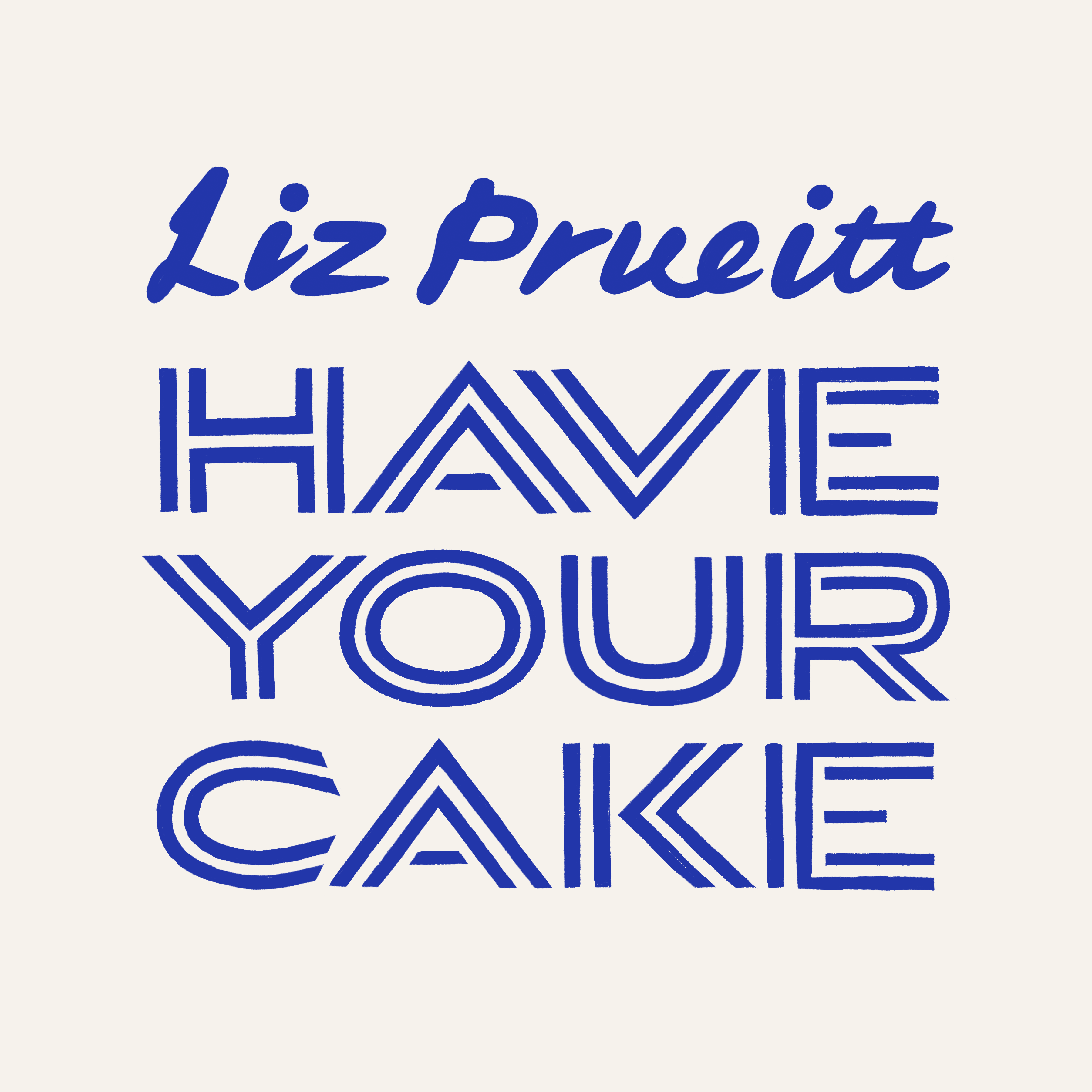
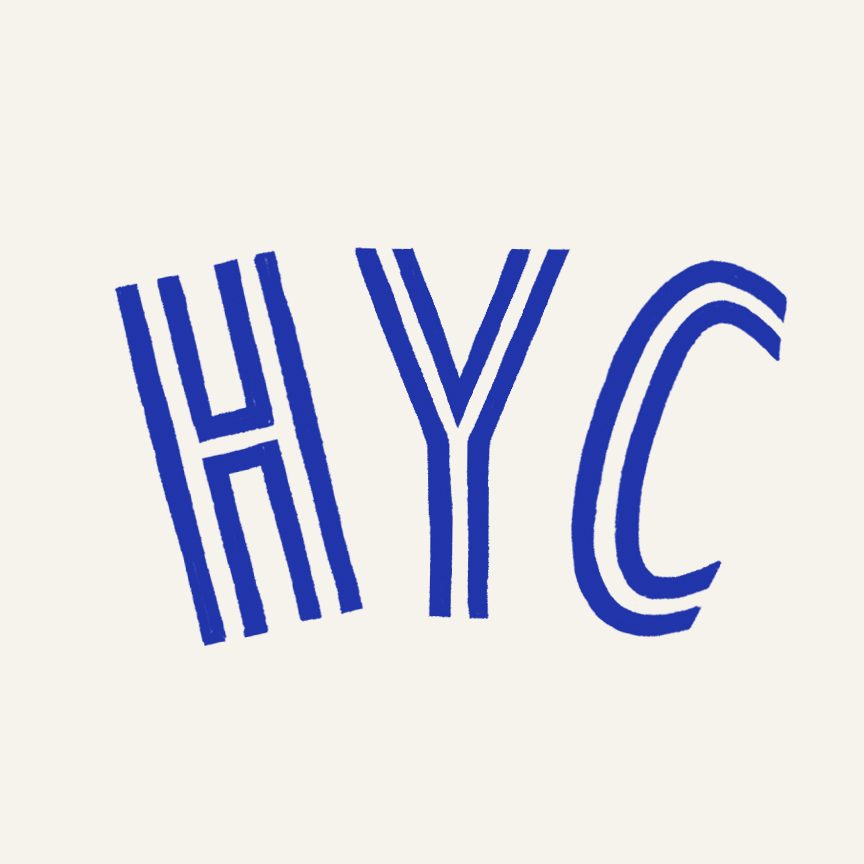
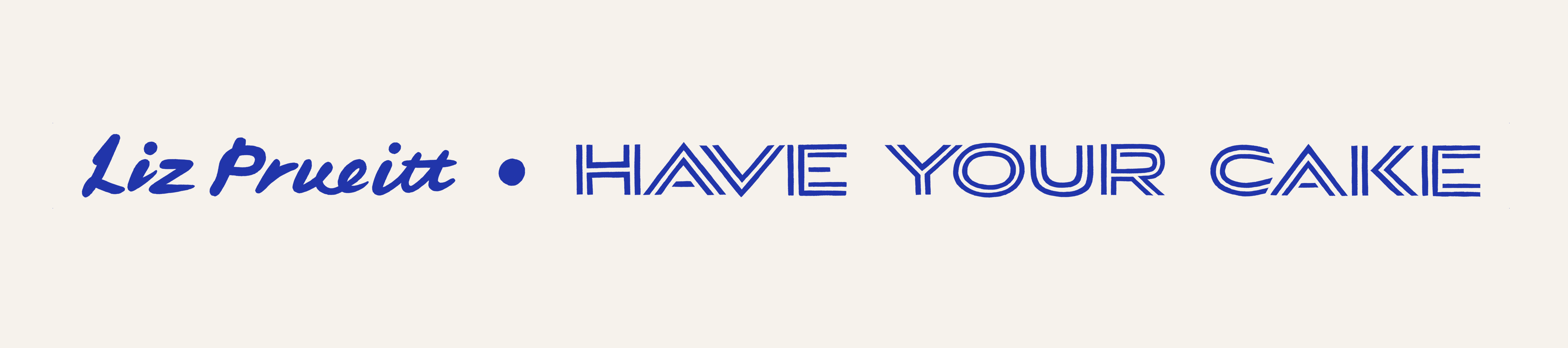
Have Your Cake is a Substack by Liz Prueitt, award-winning pastry chef and co-founder of Tartine Bakery. We created hand-lettering to accompany Liz’s gluten-free baking recipes.
Clever Creative is a female-owned strategy and brand agency based in Los Angeles. A+ worked with Clever to develop a suite of wordmarks as part of a new identity made by their design team.
Na Na Thai serves Bangkok street food in the Santa Ynez Valley. We designed a bold sans serif logo for the restaurant. The Other Room in Los Olivos is a beer and wine bar. We created two circular monograms for The Other Room—one shows the full name while the other just contains the bar’s initials. Both are Companion Hospitality properties, like Bell’s and Bar Le Côte.
Foxy’s is a deli and bagelry food cart concept located in Santa Barbara and based on a family-owned restaurant that once existed in Las Vegas. We updated the old wordmark from the restaurant and created a few illustrations as well.
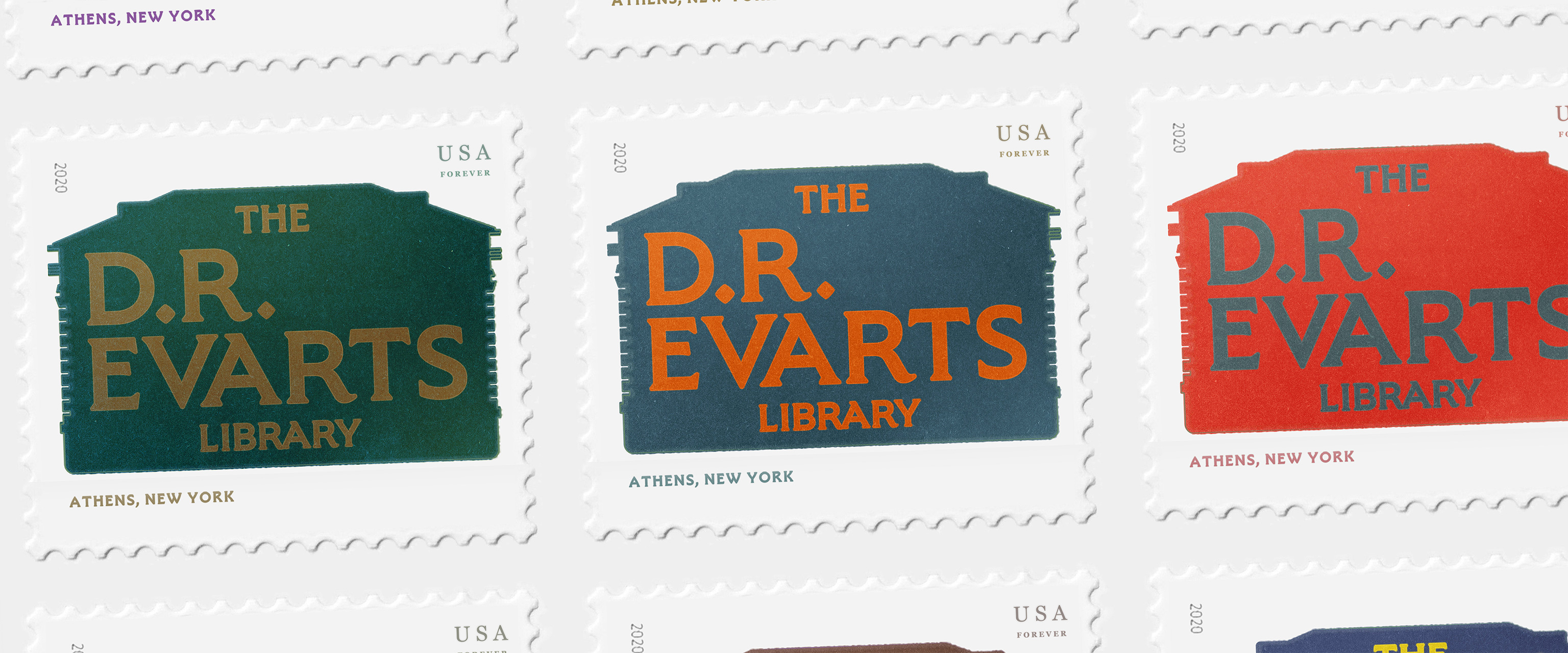
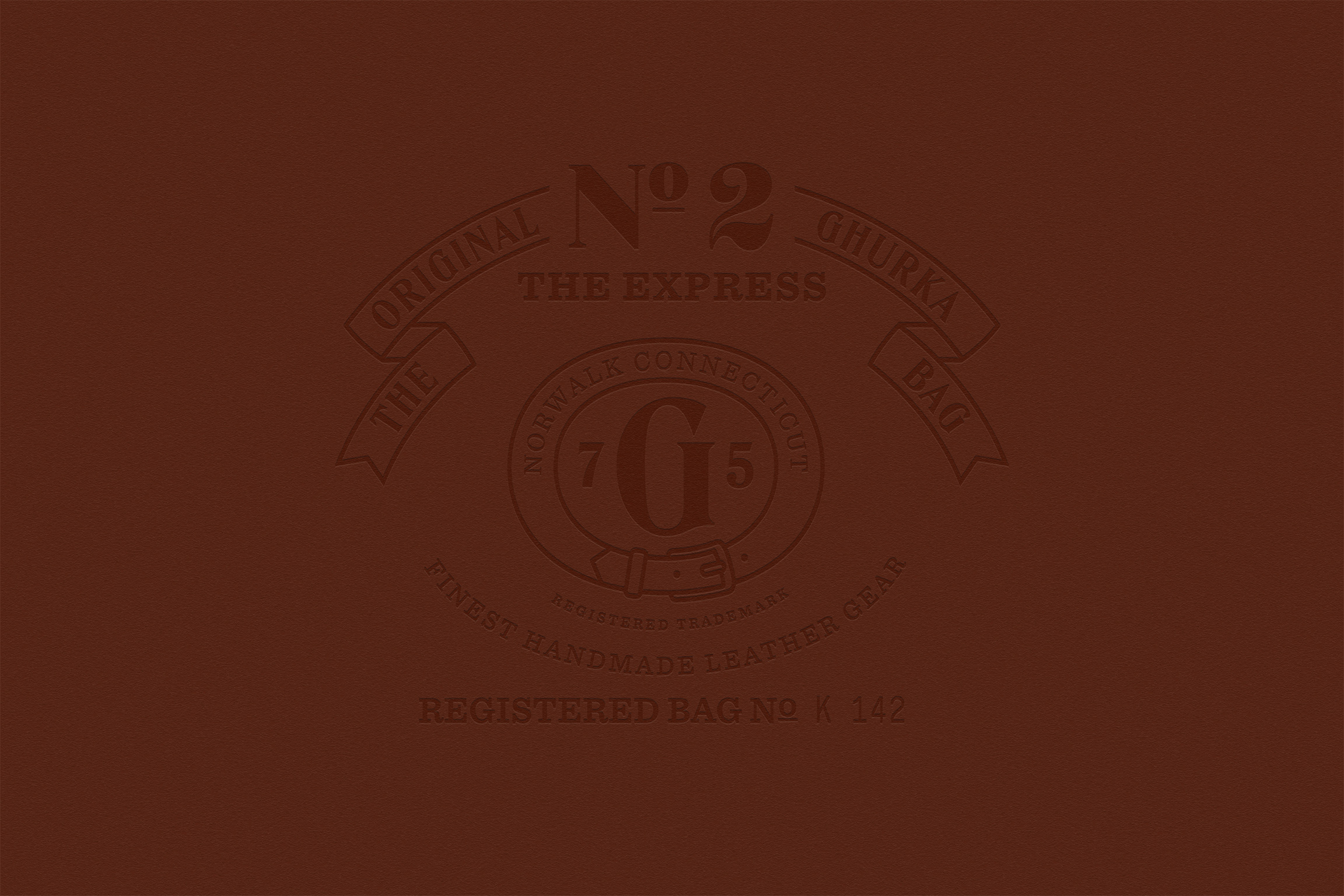
Typography is an efficient and meaningful way to build heritage. We resurrected structural type for The D.R. Evarts Library and The Stewart House, providing a new way for the institutions to leverage their history. Similarly, we made custom typography for Ghurka based on the metal type that was used on their original leather bags.
A+ has also revived old letters, drawn new ones, and created symbols, monograms, and illustrative marks for small businesses, arts organizations, and individuals, including one incredible cookbook author.